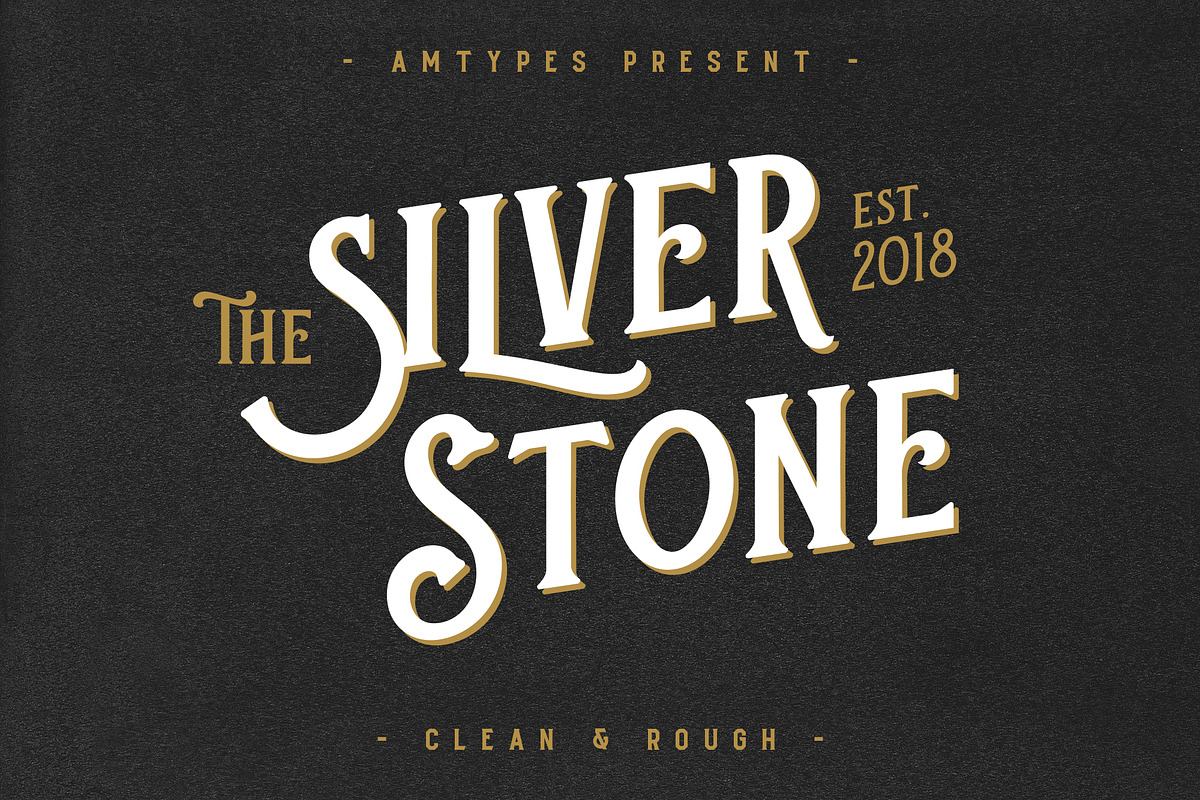
Please note that you must purchase this font for commercial use. You can download Silver Stone Font + Bonus for free, strictly for personal testing purposes only. Silver Stone is an elegant, modern serif font that combines clean lines with luxurious detailing. Designed for a sophisticated, high-end look, Silver Stone Font Free Download is perfect for creating stylish logos, branding, editorial layouts, invitations, and any project that requires a premium, refined feel.
In addition to the Silver Stone font, this bundle comes with a bonus set of decorative elements and extras, giving you even more creative freedom. The font includes uppercase and lowercase letters, numerals, punctuation, and multilingual support, ensuring flexibility across various design projects.
Whether you're working on upscale branding, a high-end event, or custom stationery, Silver Stone Font + Bonus adds a touch of elegance and luxury to your typography.